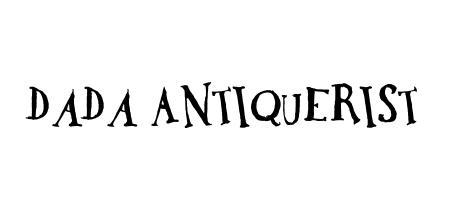
DaDa Antiquerist
By Heyheydecay
DaDa Antiquerist is a playful, slightly chaotic typeface. Its letters are uneven, with varying heights and widths, giving it a handcrafted, almost distressed look. The serifs are irregular, adding to its whimsical, vintage feel. It evokes a sense of quirky energy and perhaps a hint of rebellion. The font leans towards a hand-drawn aesthetic rather than a strictly digital one.